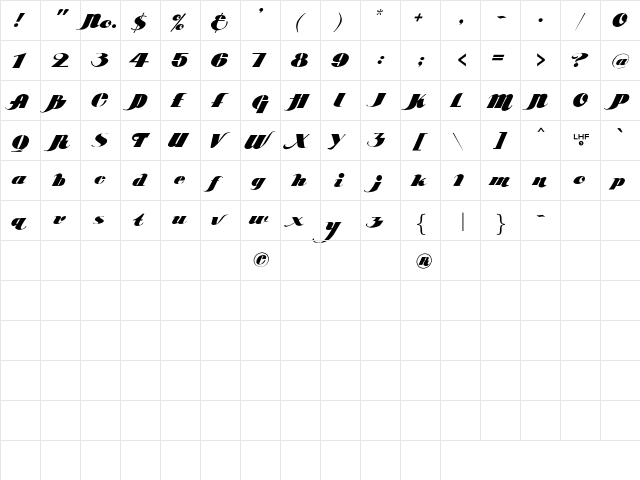
LHF Becker Poster Script Normal
Design Context for LHF Becker Poster Script Typeface
LHF Becker Poster Script brings a calligraphic fluidity to the page — its connecting strokes and expressive curves give it an unmistakably human quality.
Font Pairing: Combine LHF Becker Poster Script with a simple geometric sans for maximum contrast — the tension between flowing curves and clean structure is a classic typographic pairing.
Pro Tip: Use LHF Becker Poster Script for short runs of text — names, titles, or taglines. Extended body copy in script faces tires the eye quickly.